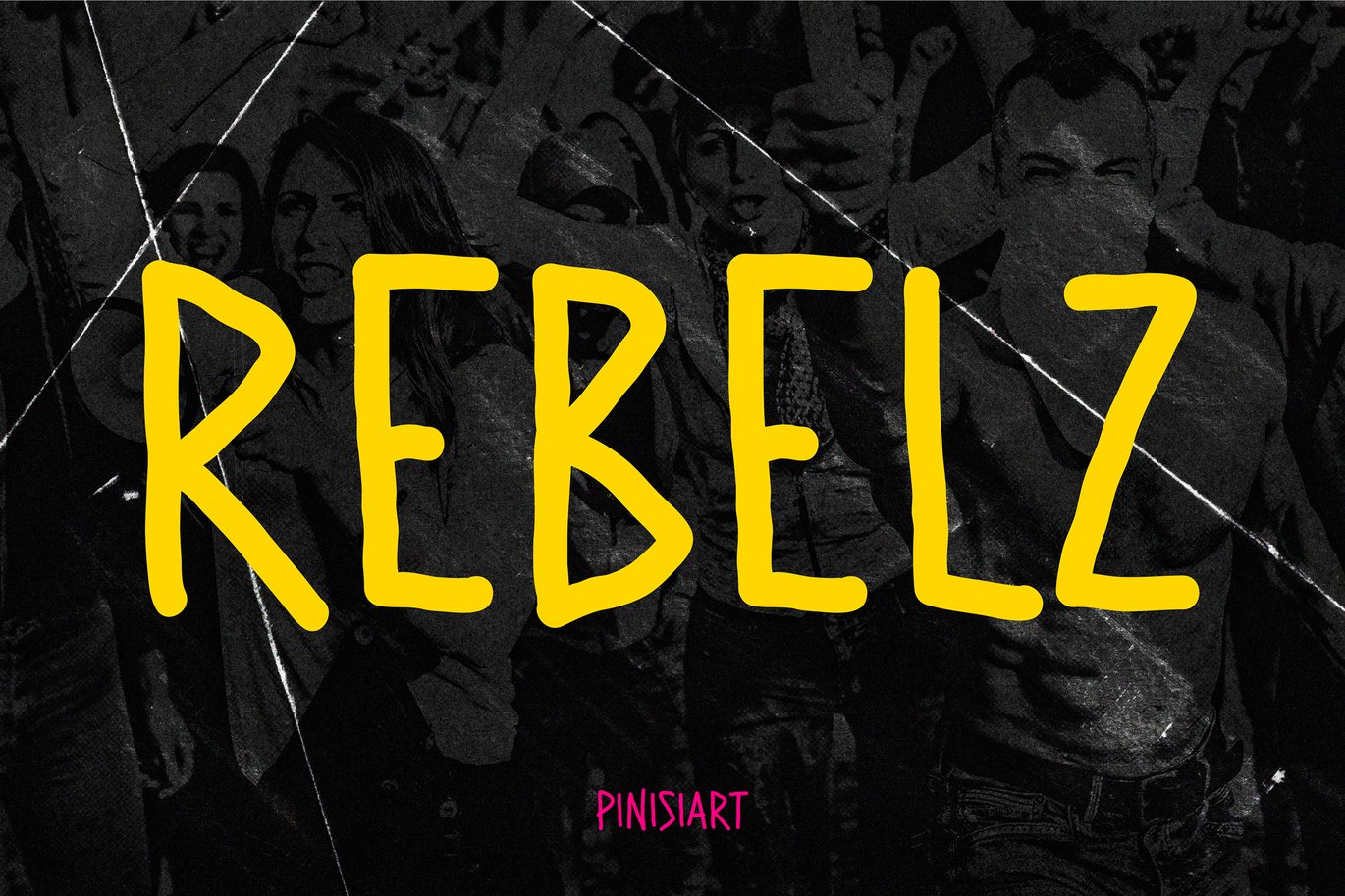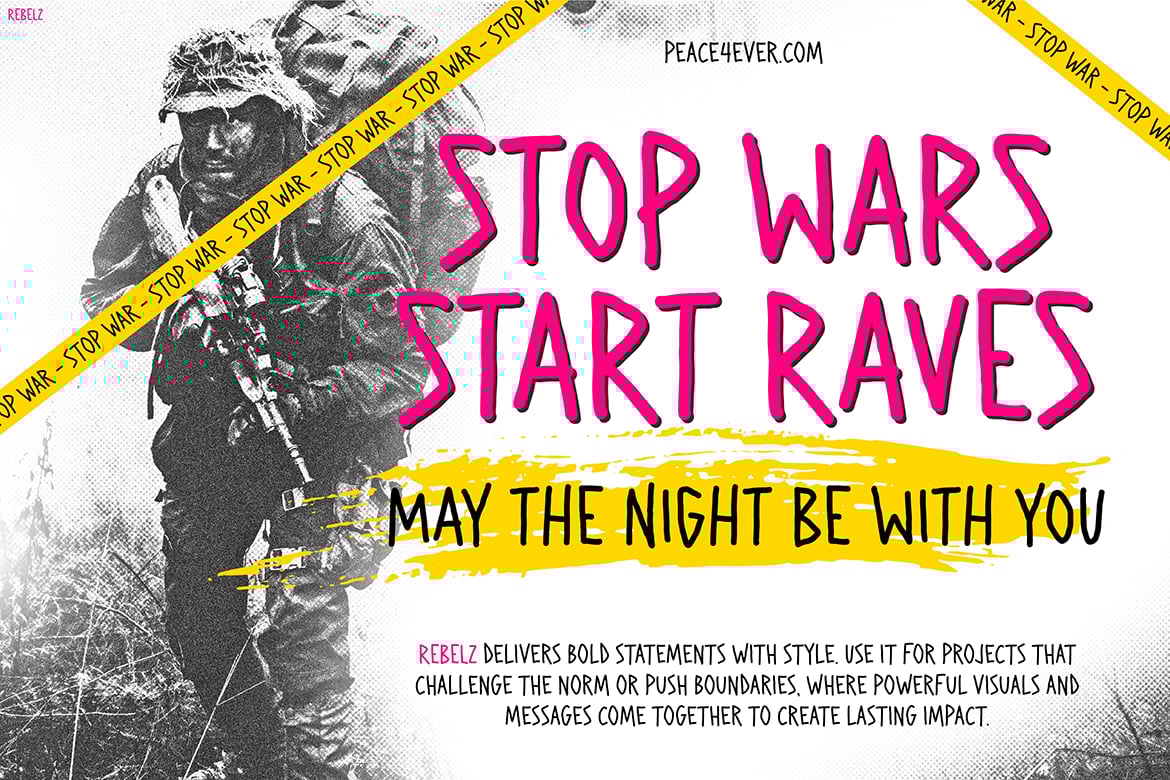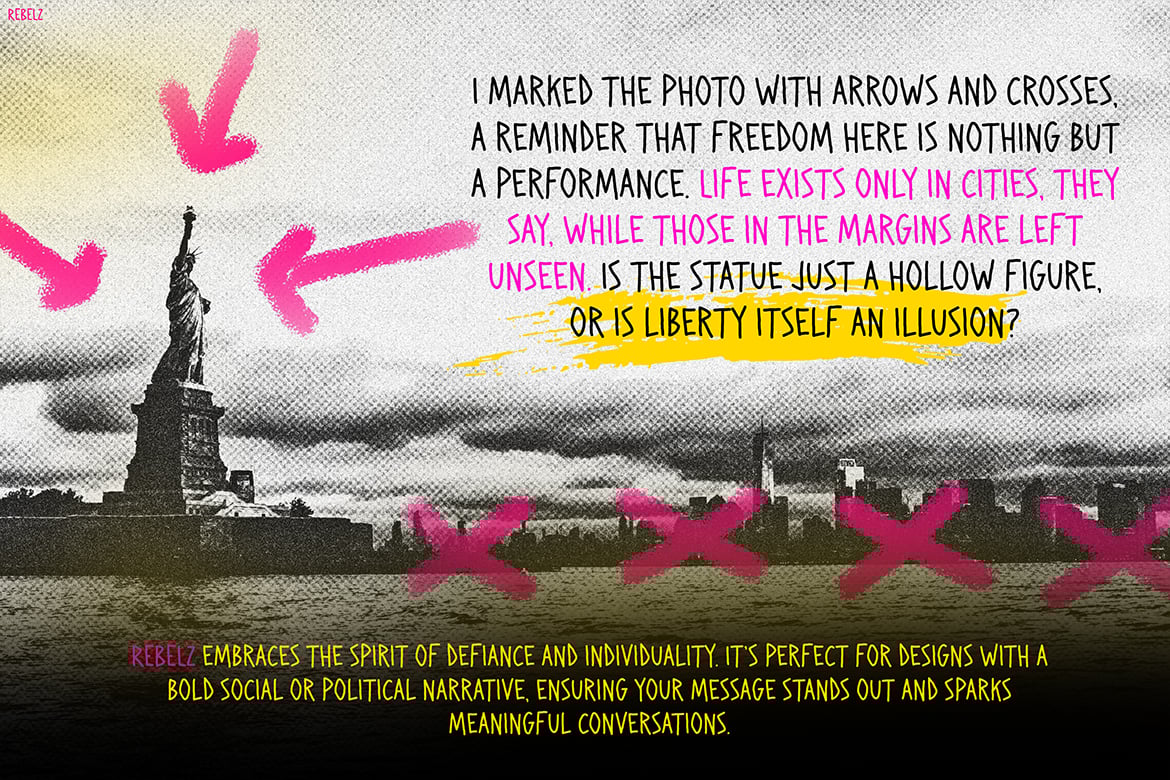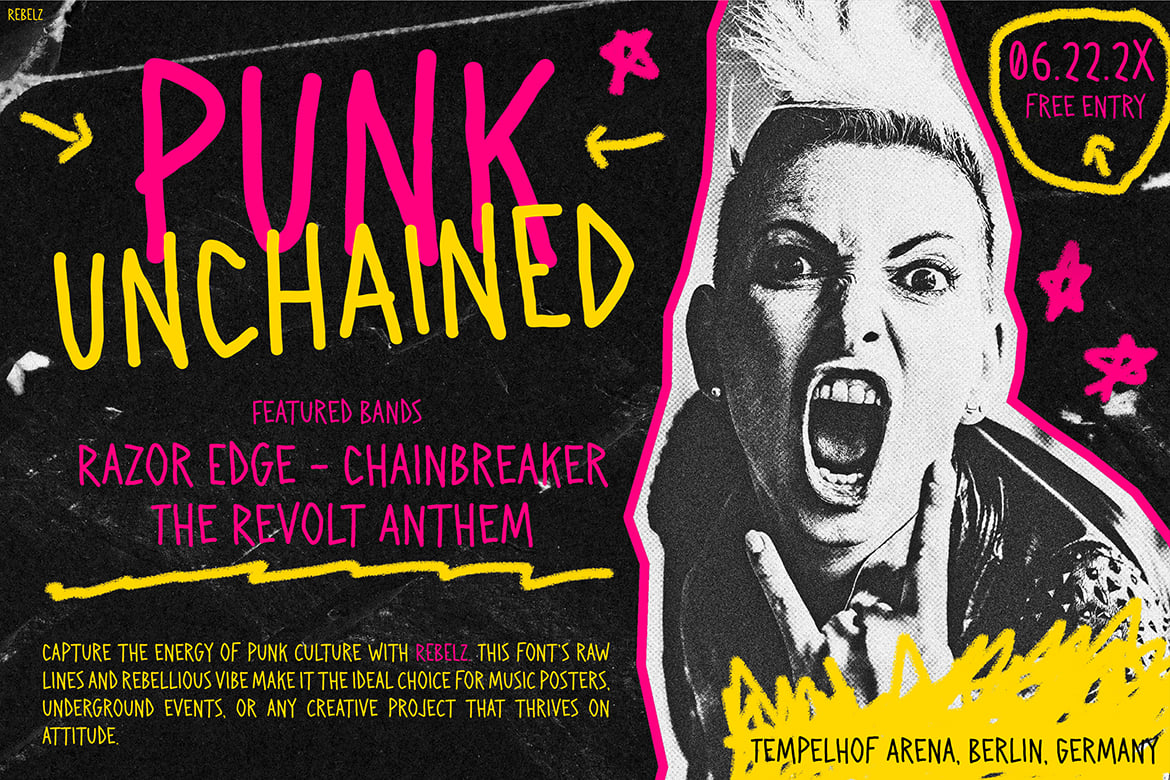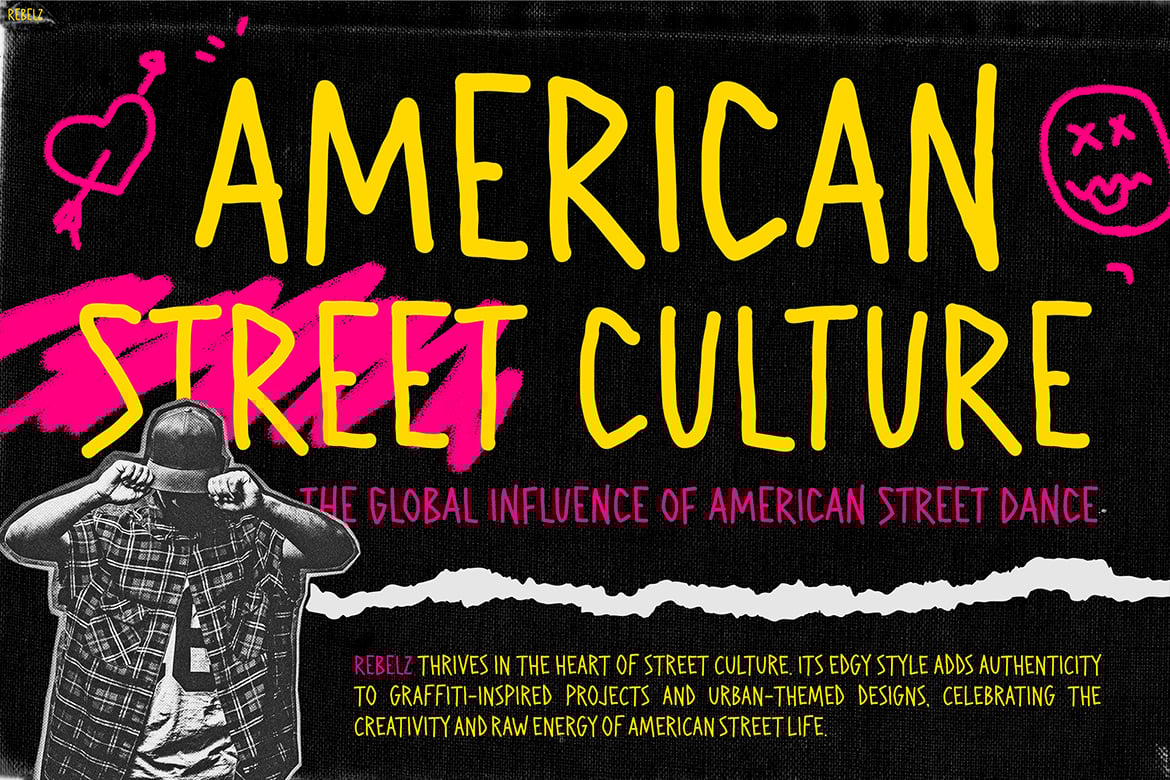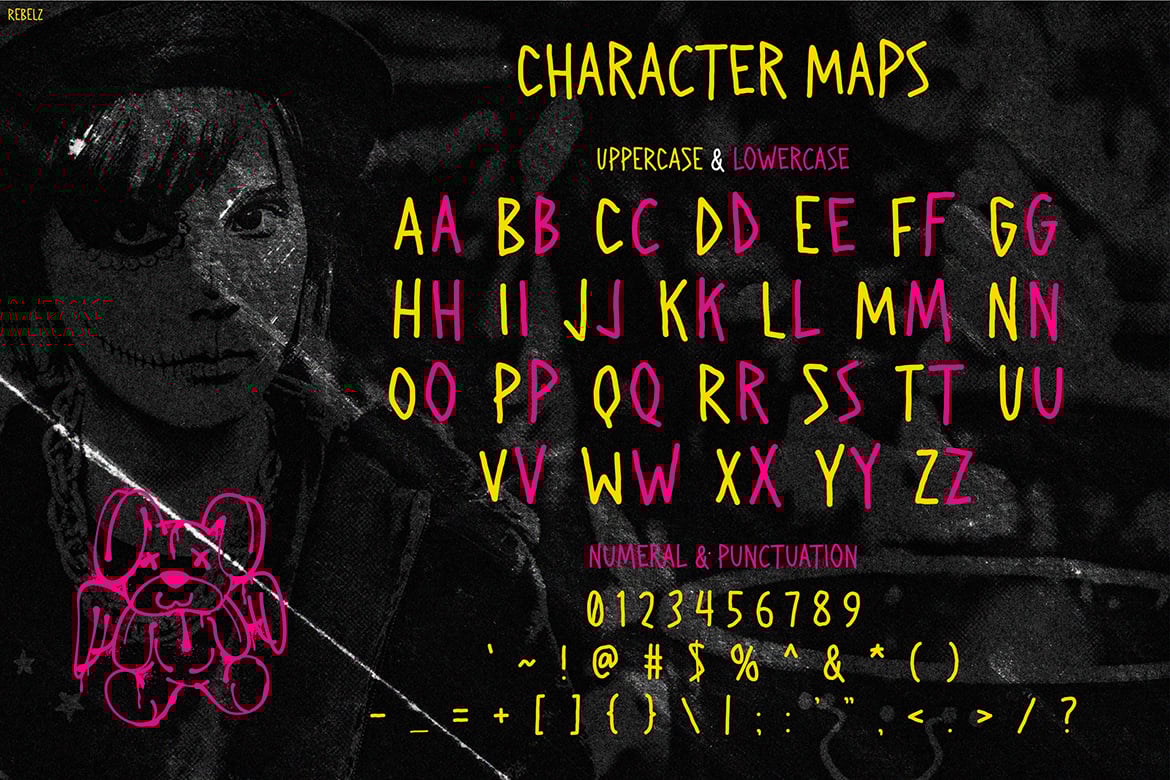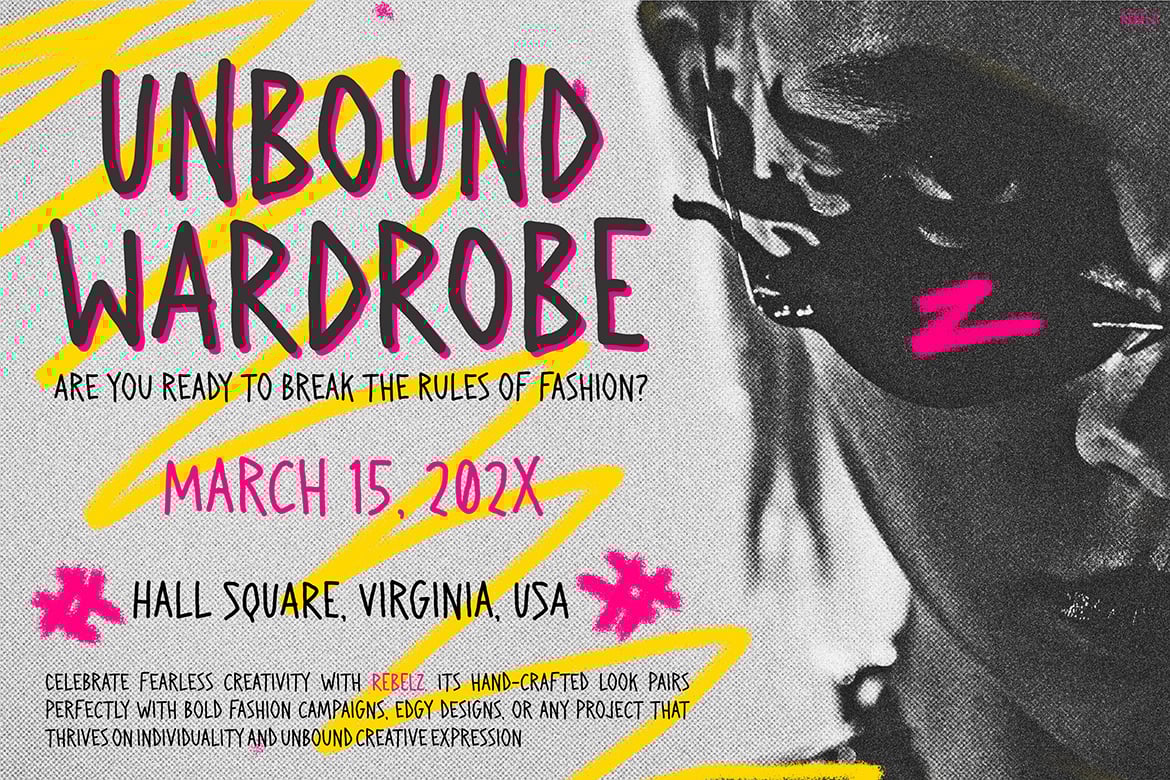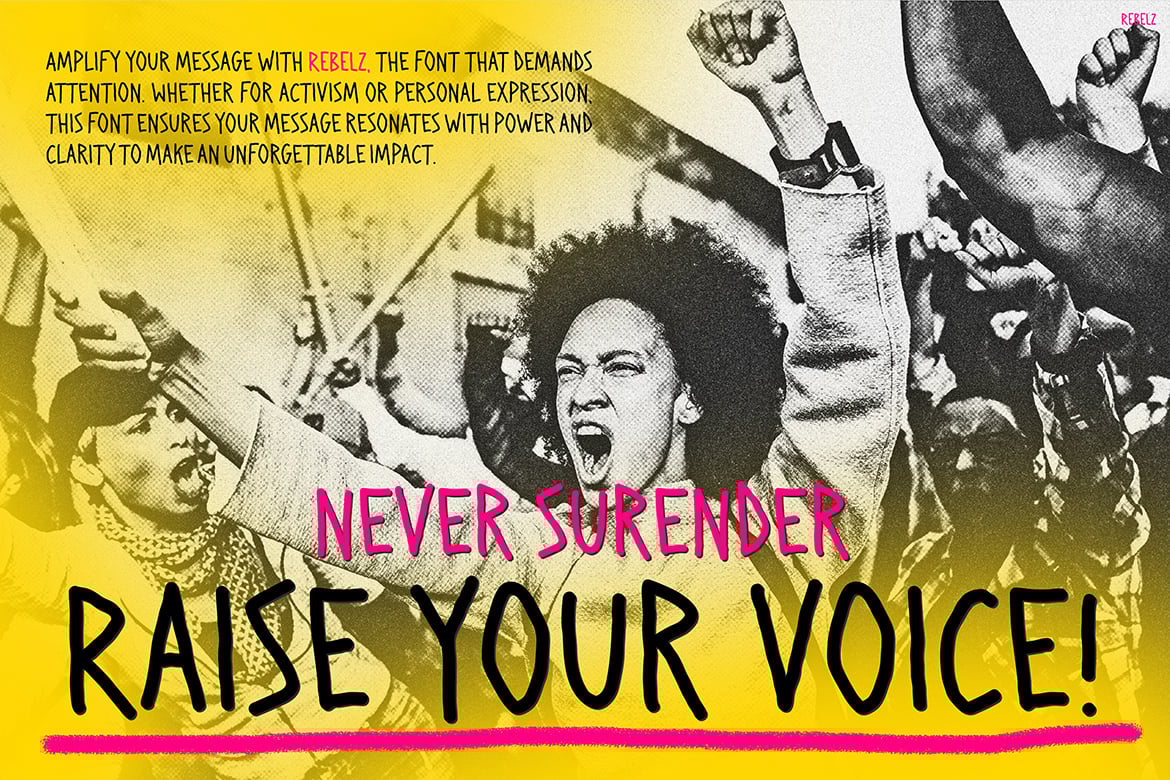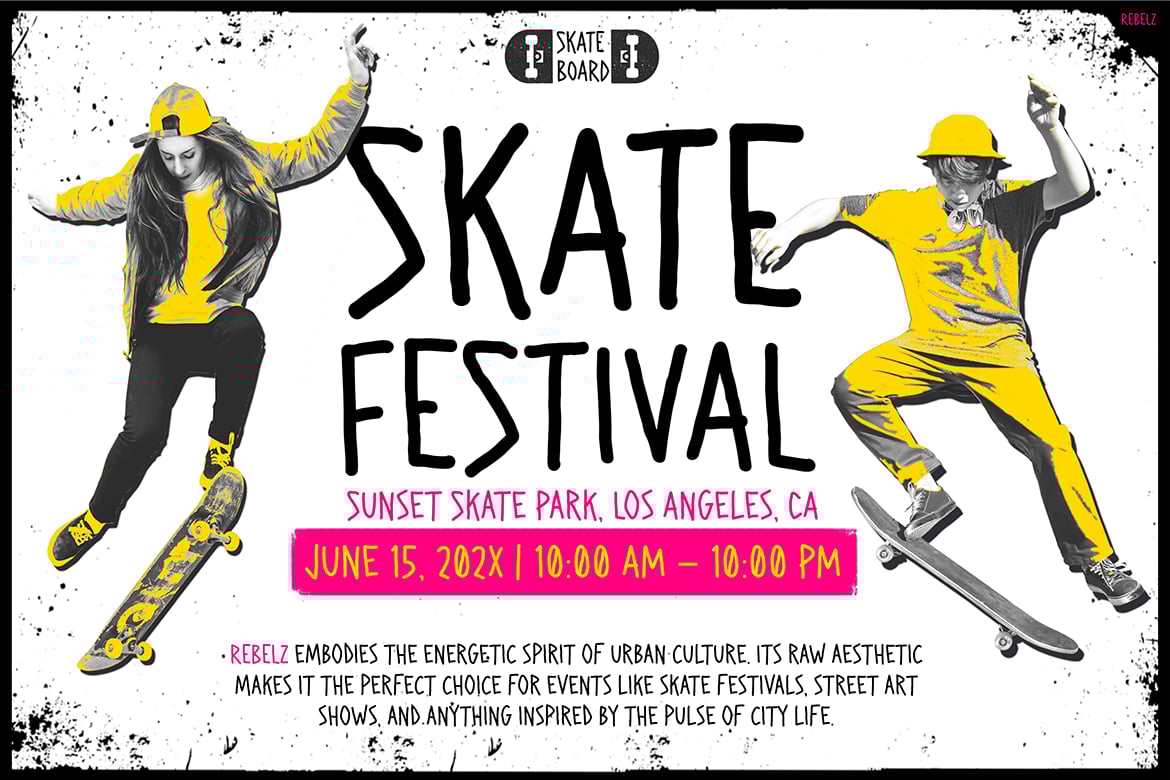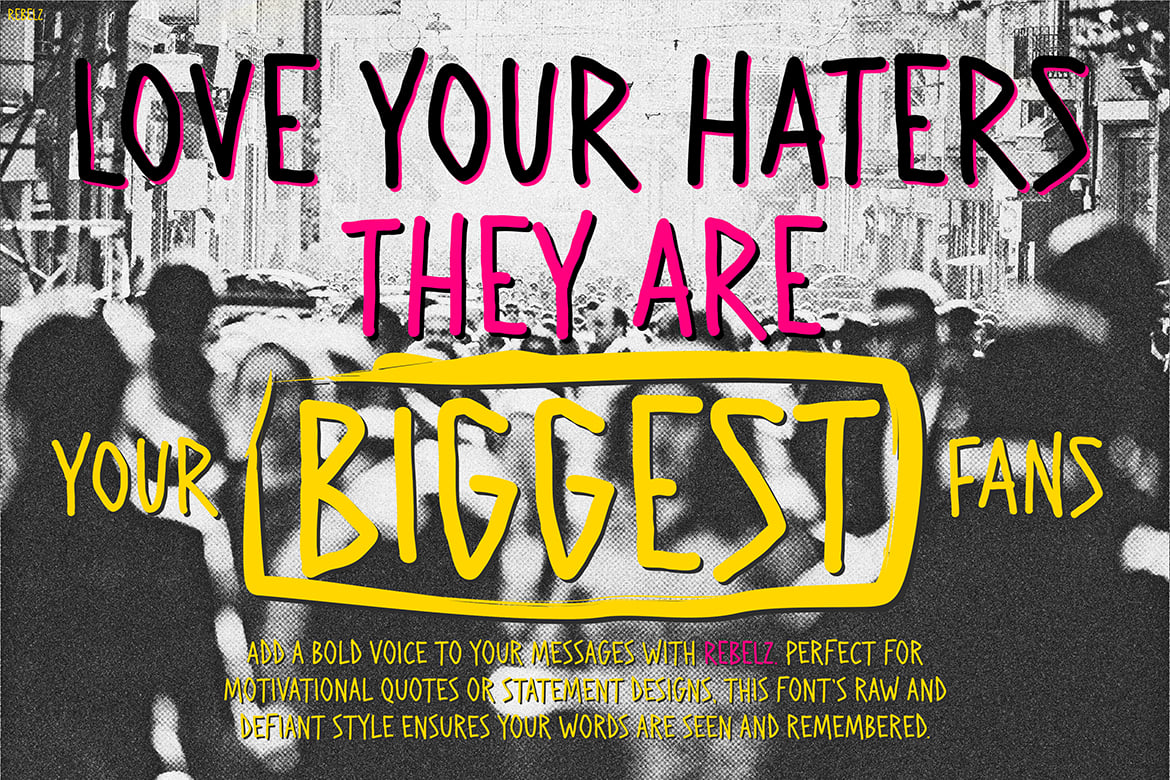
Grunge Handwriting Font – Rebelz
REBELZ is a bold and chaotic hand-drawn display font bursting with teenage angst, street noise, and punk rebellion. It’s expressive, raw, and doesn’t play by traditional typography rules—perfect for designs that thrive in disorder and scream authenticity.
Crafted for punk event posters, streetwear branding, zines, youth protest signs, and urban culture campaigns, REBELZ brings that DIY attitude and underground grit straight into your visual voice.
Its scratchy strokes, unrefined letterforms, and graffiti-style rhythm make it impossible to ignore—ideal for attention-grabbing titles, high-contrast messaging, and social impact campaigns.
REBELZ isn’t just a font—it’s a riot on your screen. Loud, gritty, and unfiltered, this is the voice of youth culture, protest energy, and raw underground spirit turned into bold letterforms.
- Hand-Drawn & Imperfect – Scratchy, unpolished strokes capture real rebellion
- Uppercase, Lowercase, Numbers & Symbols – Everything you need for wild messaging
- Youth-Focused & Subversive – Built for fashion drops, skate flyers, and political protests
- Street Culture DNA – Inspired by zines, graffiti tags, and DIY punk posters
- Bold, Fast, and Loud – Instantly recognizable on flyers, merch, and album covers
- Color-Ready & Contrast-Loving – Pops hard in black-pink, yellow-black, and other high-energy combos
REBELZ is the visual language of nonconformity. It’s built for designers who dare to shout, provoke, and empower through raw, rebellious visuals.